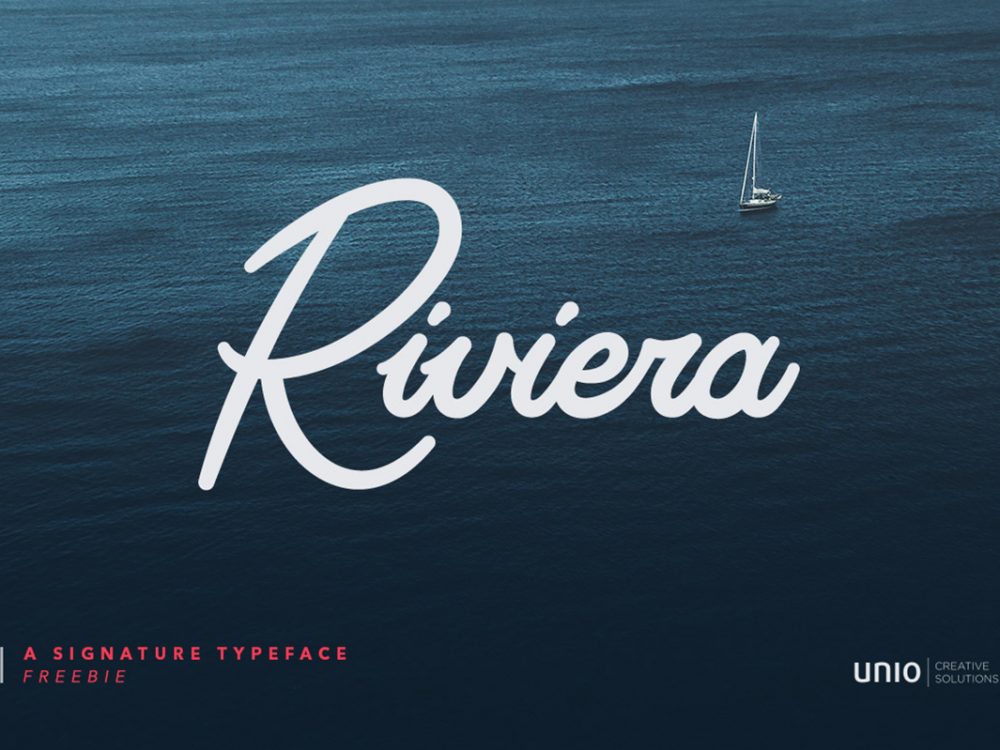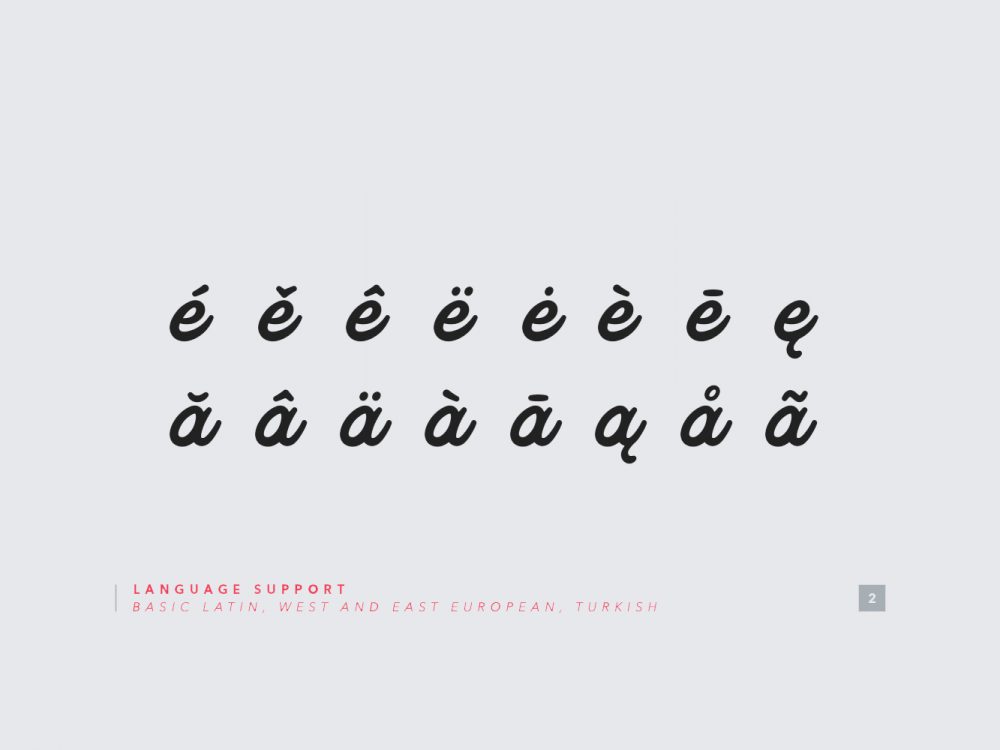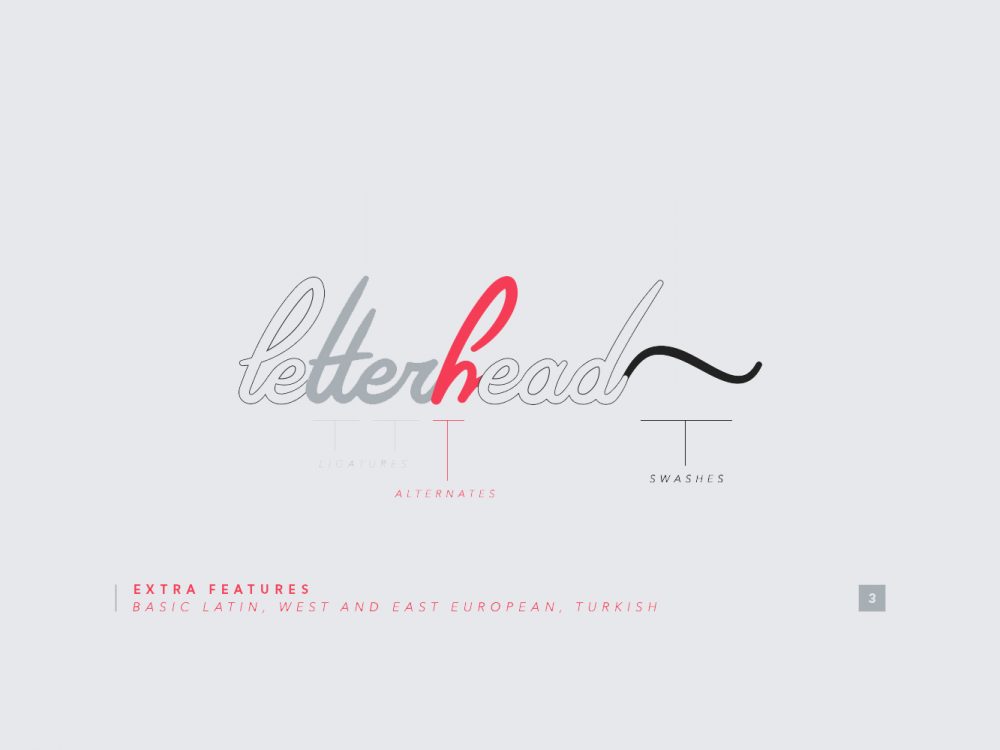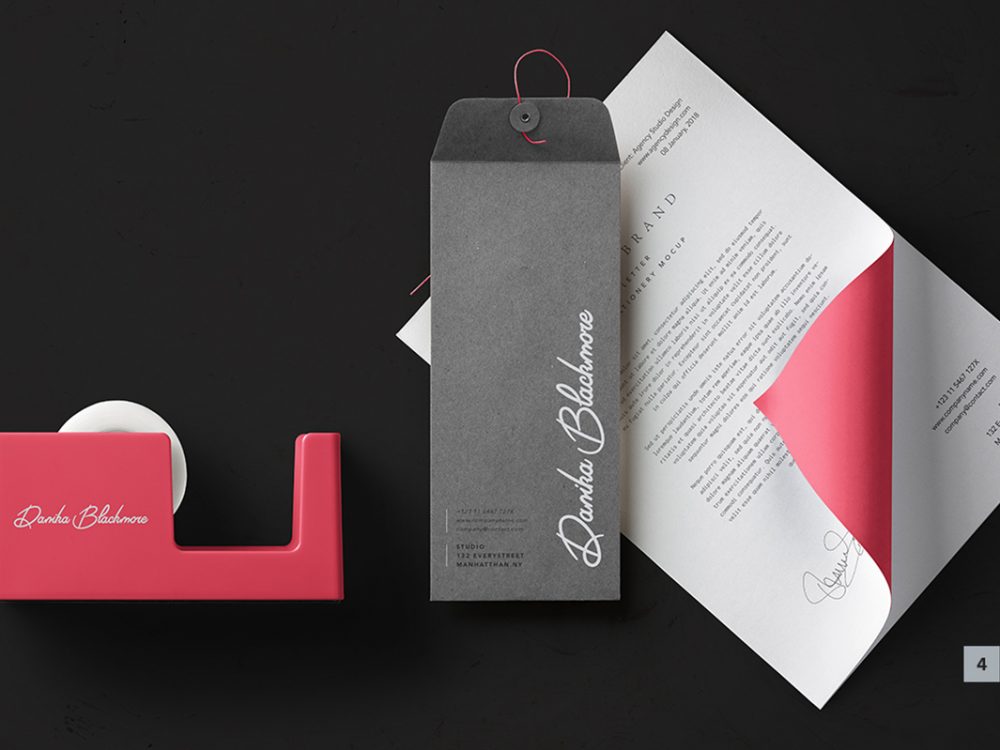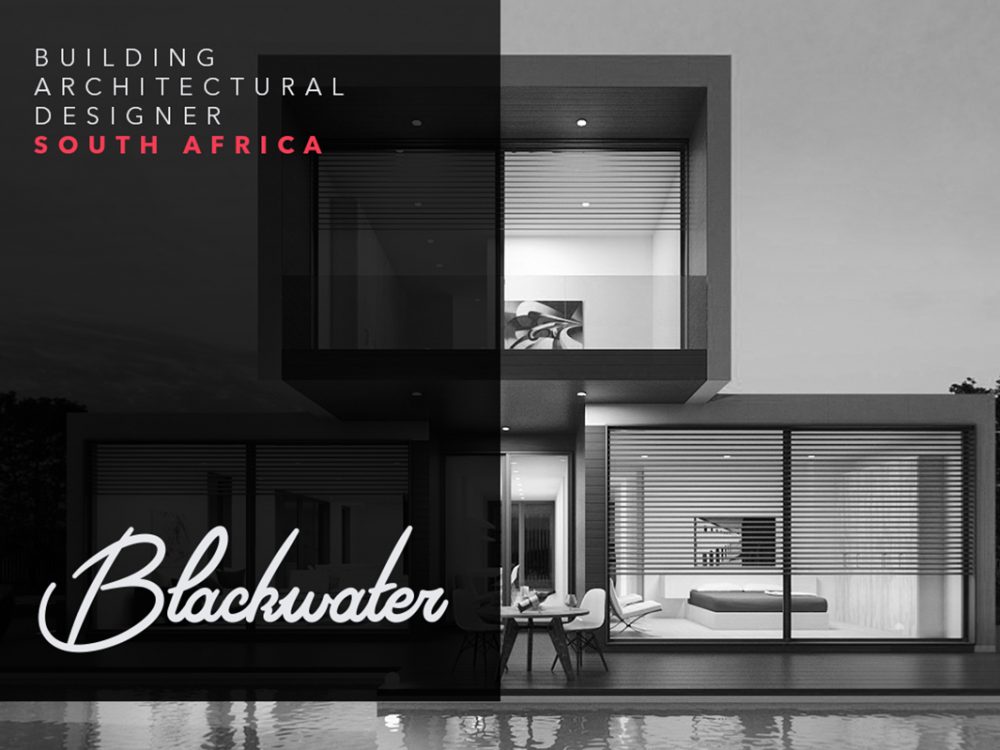
Riviera Free Font
Riviera Free Font is a modern and elegant signature font that has been crafted with gentle curves and sophisticated strokes. This font is very suitable for creating various projects that require a script brush font. You can use this font to create memorable posters, wedding invitations, greeting cards, branding, flyers, t-shirt and pillow prints, and more. Improve the quality and increase the popularity of your design projects by using this font. If you like it don’t forget to check out the full version.